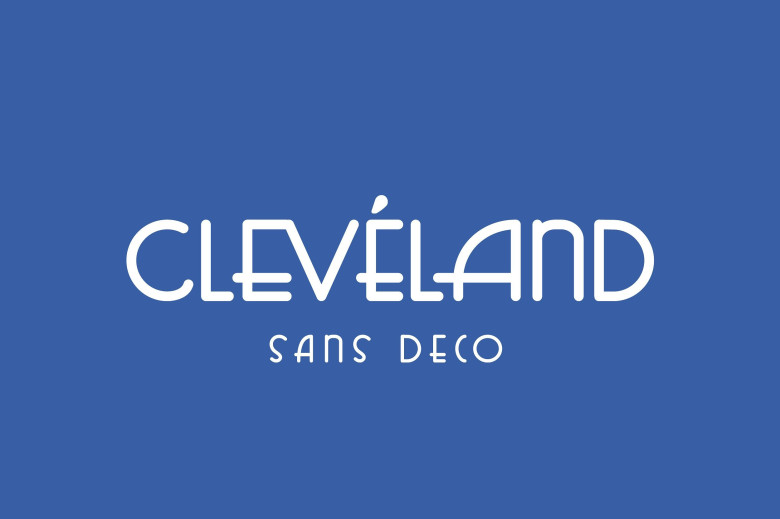
Cleveland Sans Deco Font
Say Hello Guy’s. This is a handcrafted sans serif font. Introducing Cleveland Font. This is a sans serif font that has an Art Deco flow that became a trend in the past and then we bring it to the present. with a form inspired by the glory of retro style and uniqueness. we offer this typeface. This font is perfect for making fashion branding logos,book title,logo photography,watermark pgotography, social media, wedding invitations, taglines, headlines, and of course signatures.